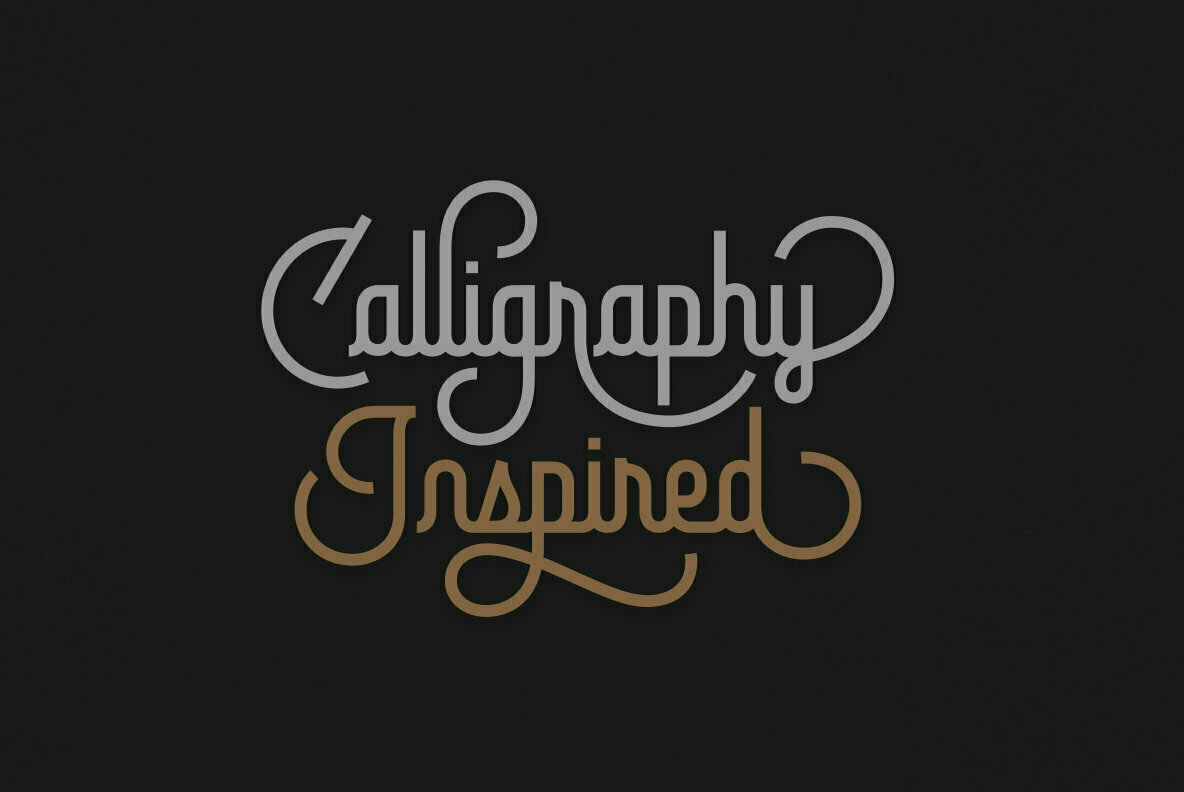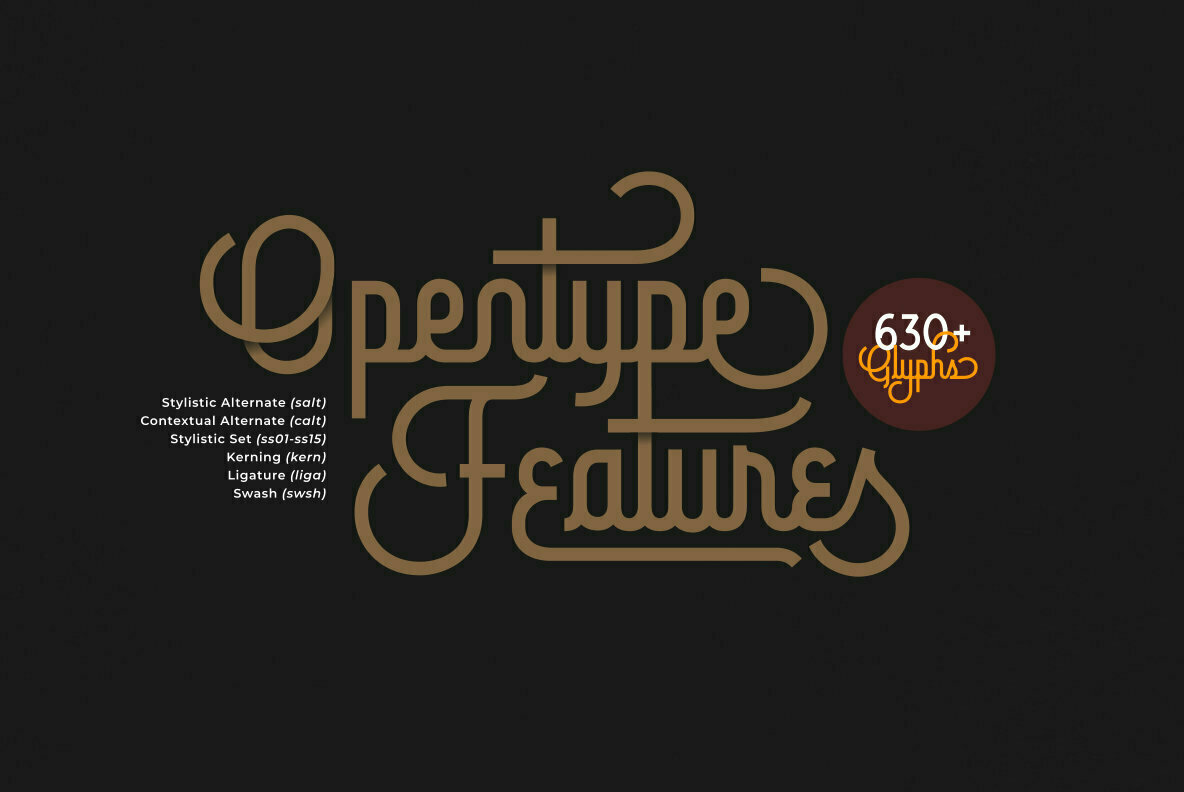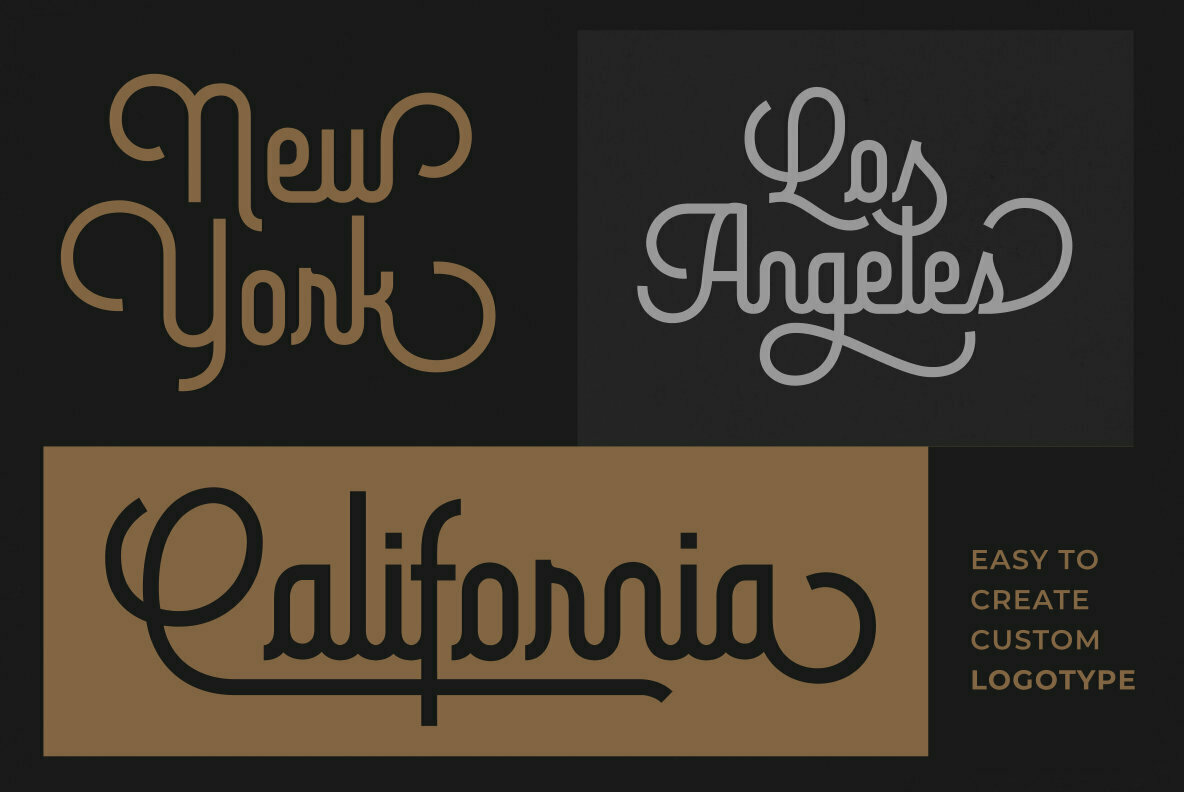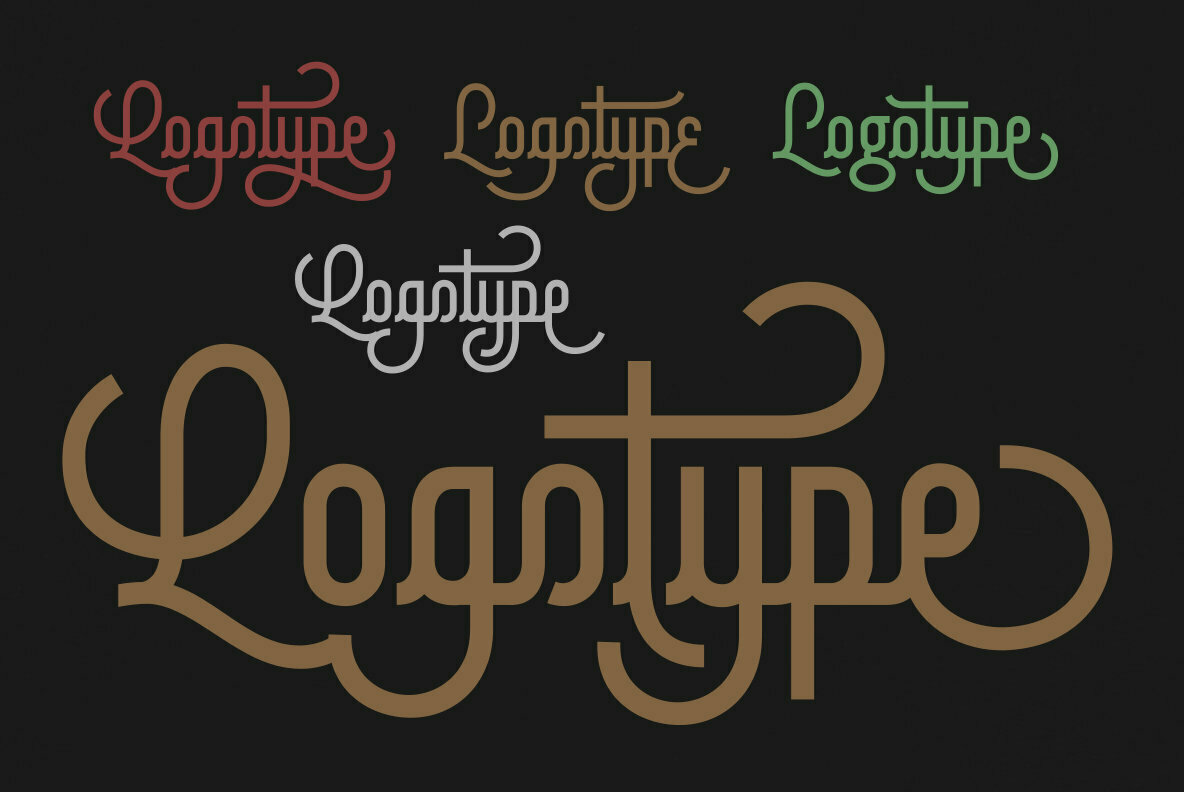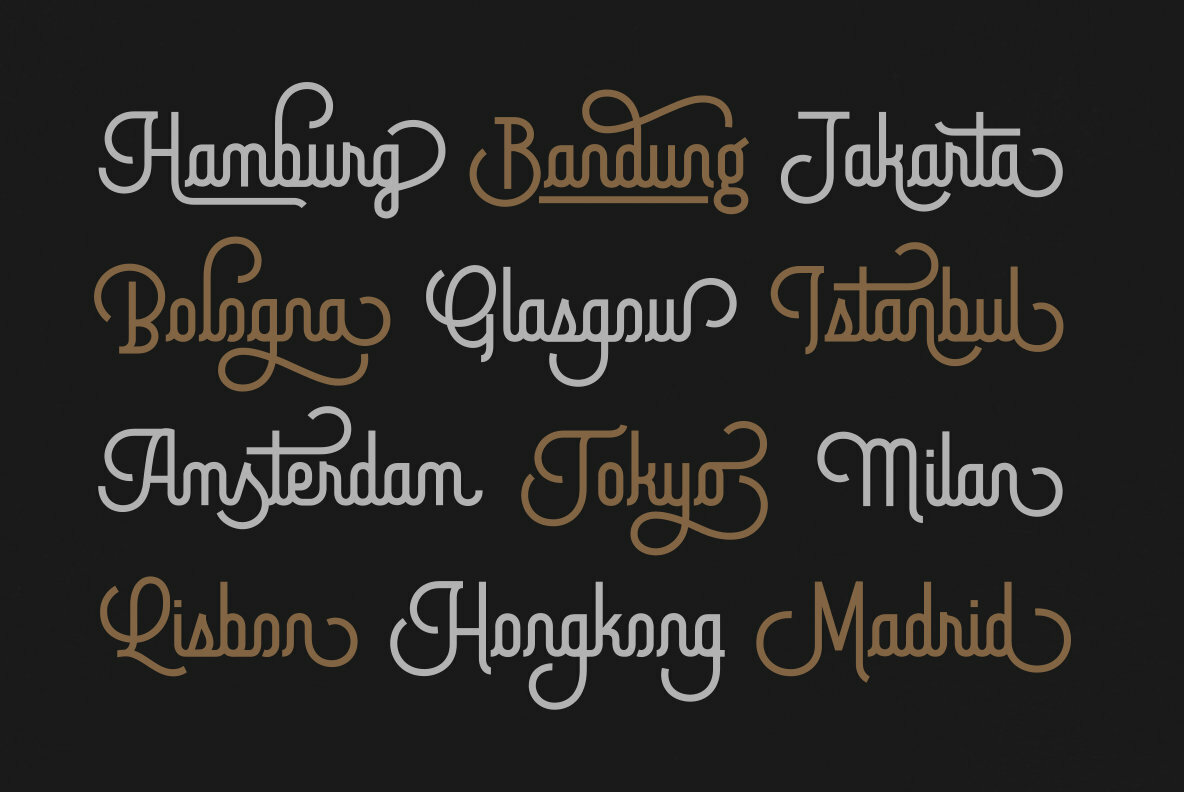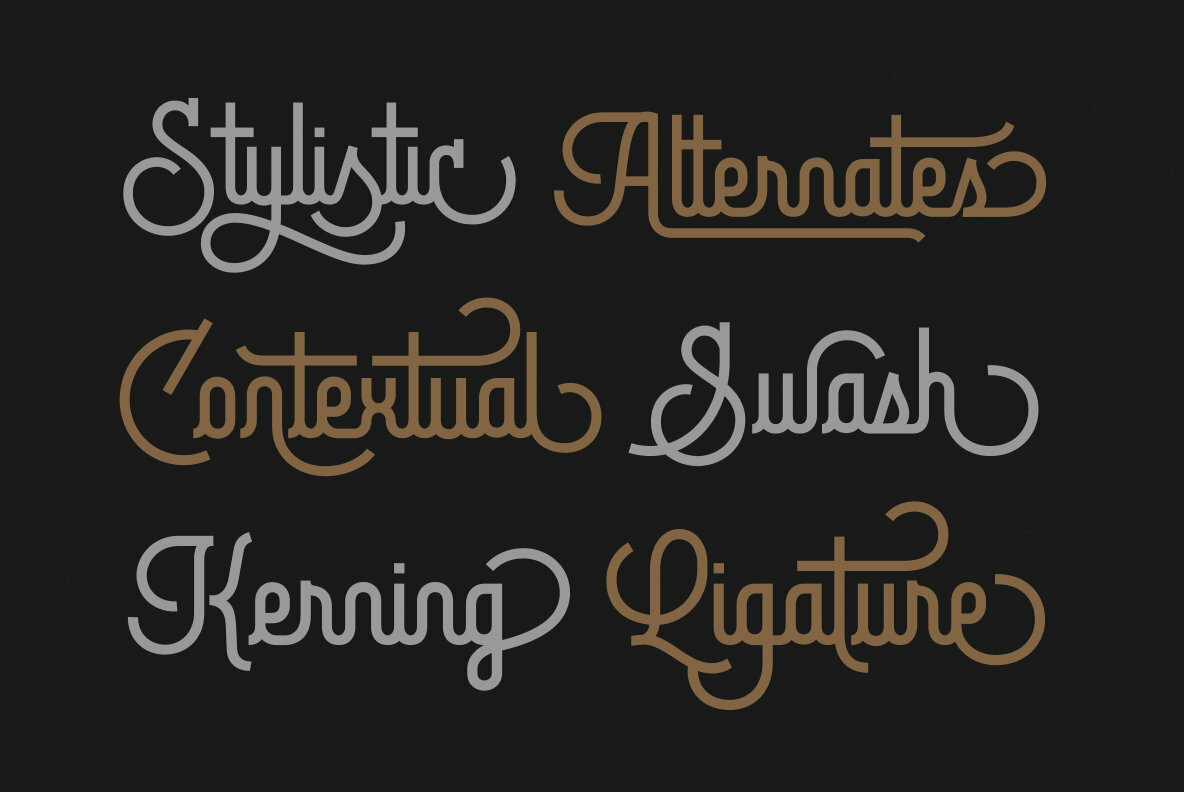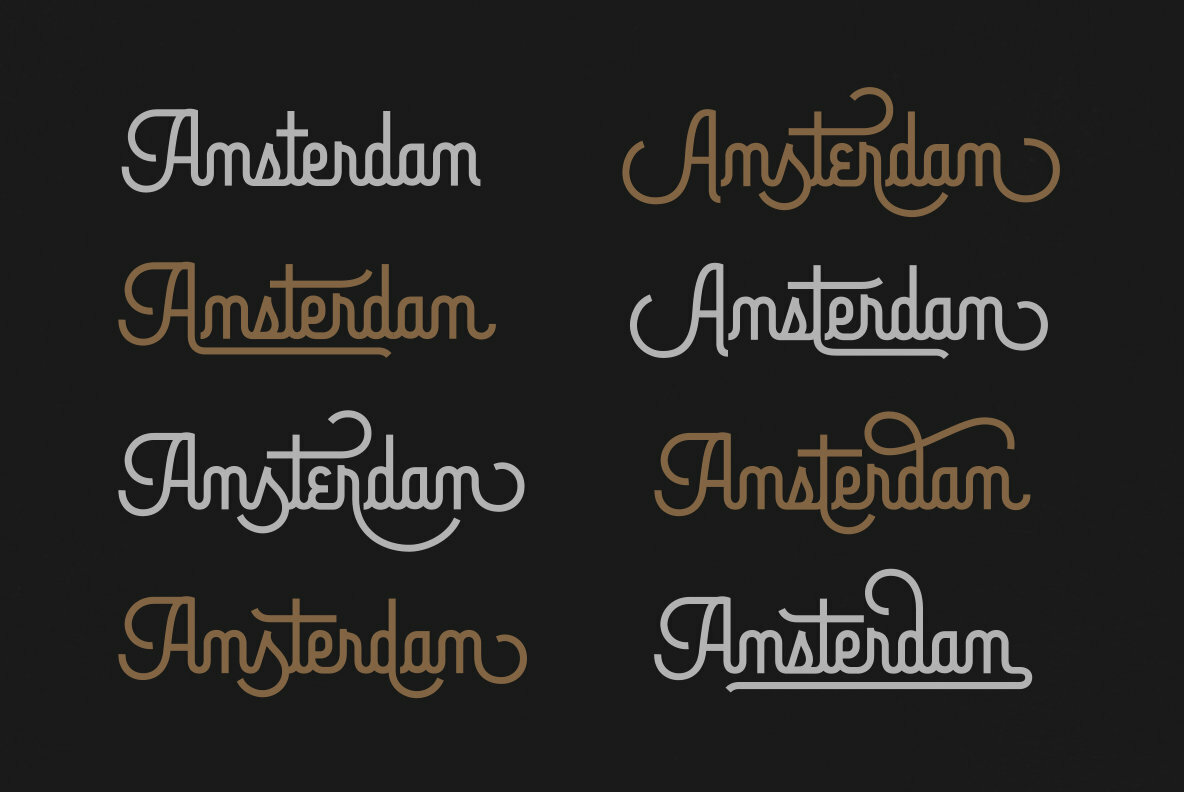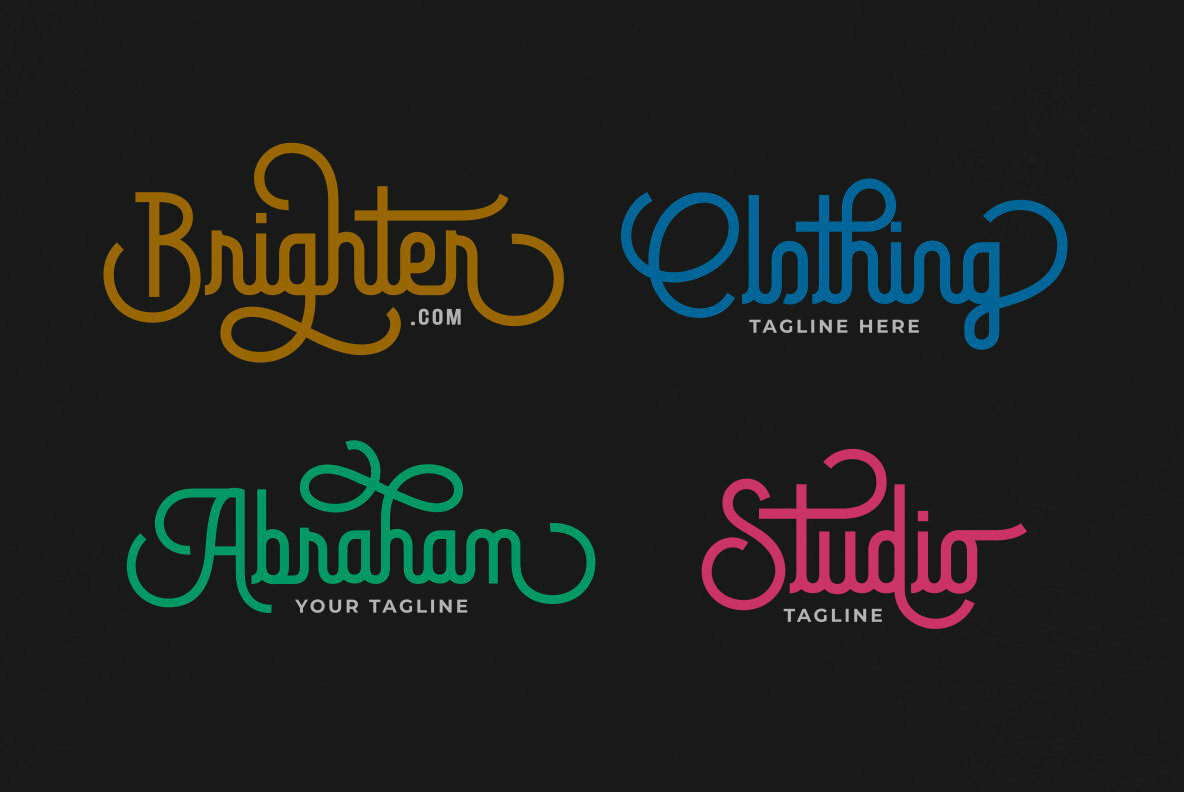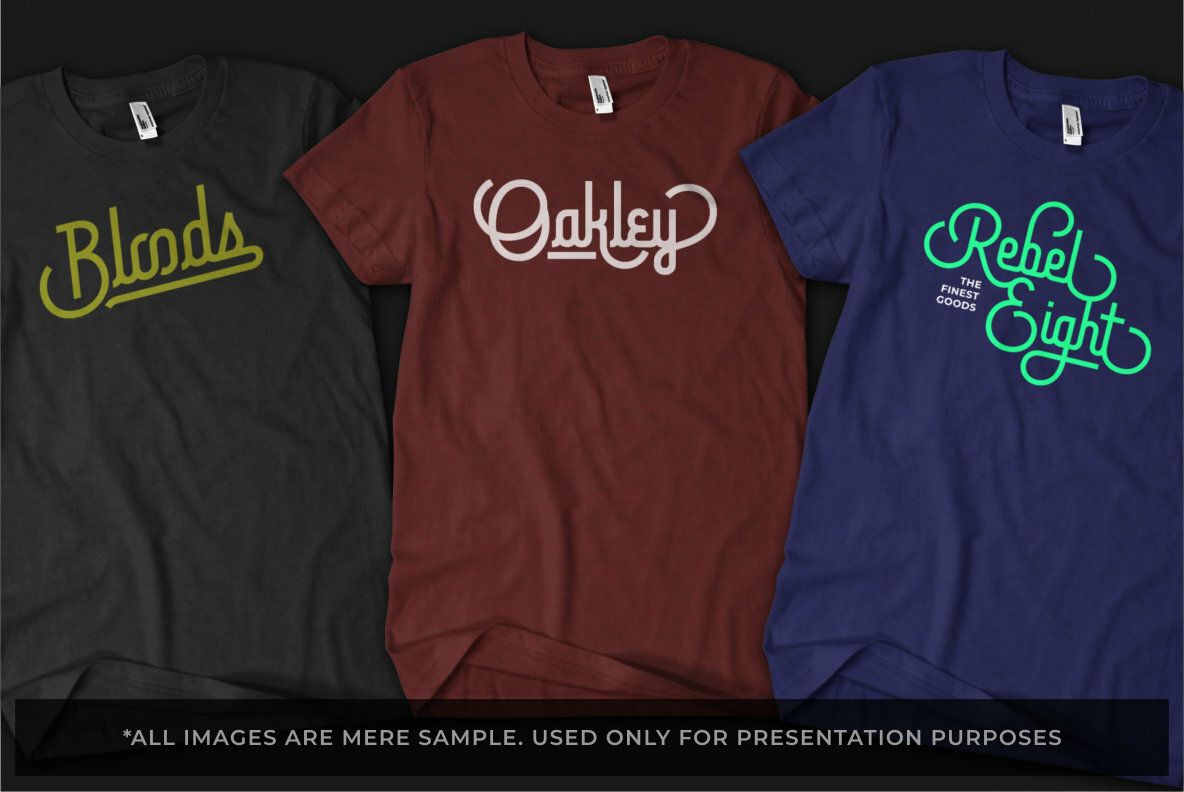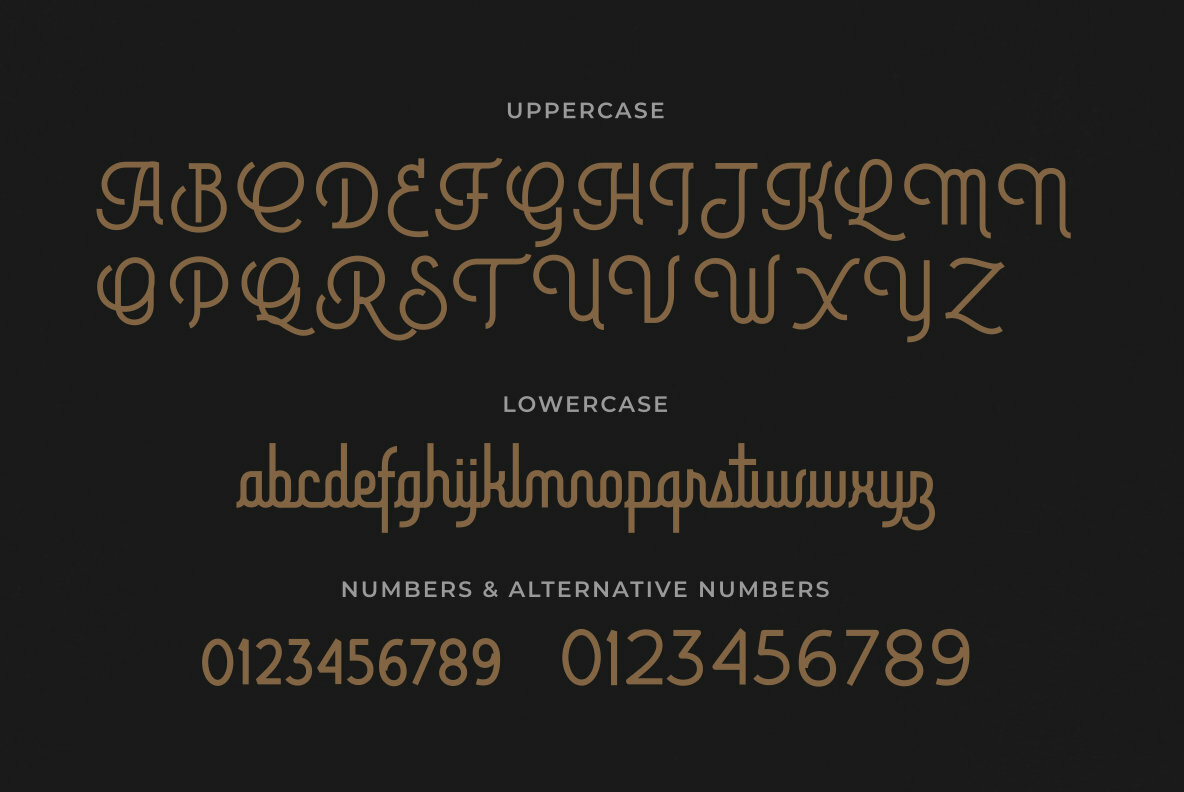
Brotherline Font
Brotherline
Brotherline introduces a unique blend of hand-lettering and calligraphy styles in a bold mono-line script. Each curve is carefully crafted with smooth, circle-shaped contours, complemented by square caps. This distinct approach makes Brotherline an excellent choice for designing impactful logotypes and eye-catching signboards. For the optimal experience, activate the ligature and contextual alternate features. Utilize software capable of OpenType functionalities to fully explore Brotherline’s versatility.Brotherline: Bold Mono-Line Connected Script